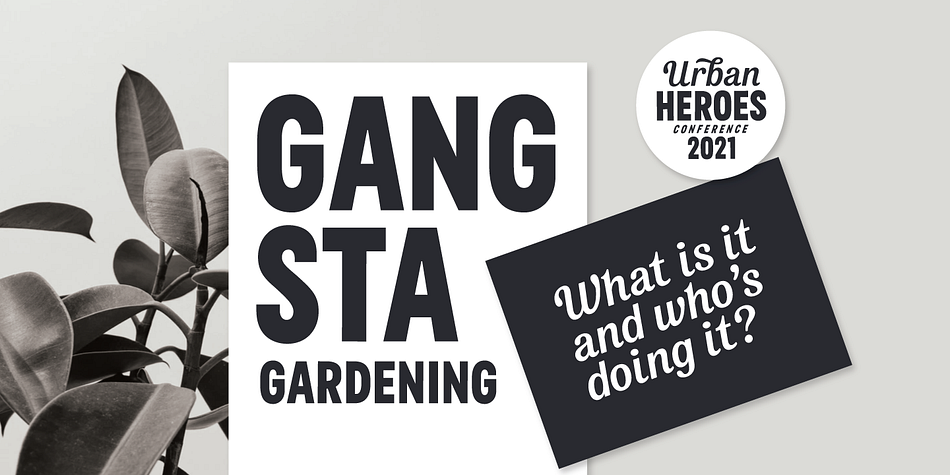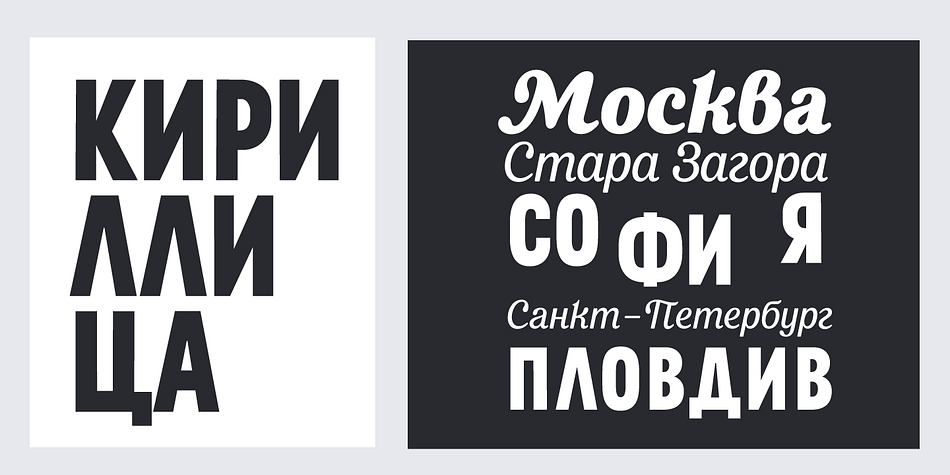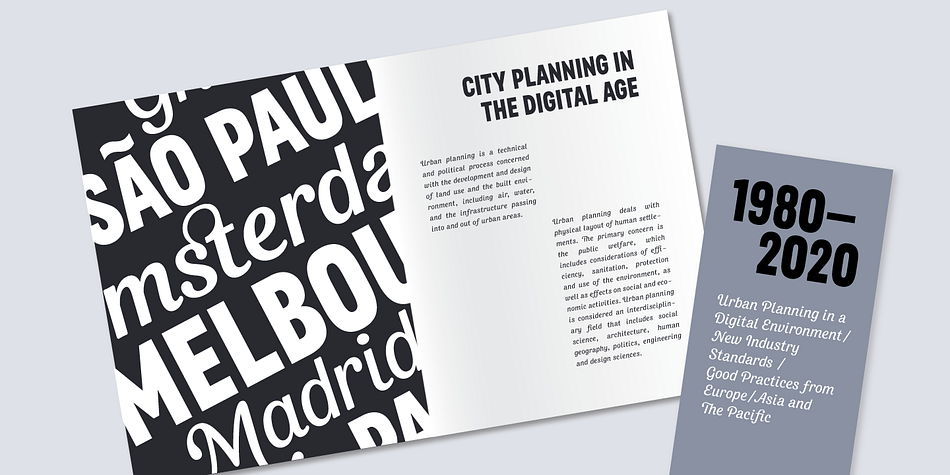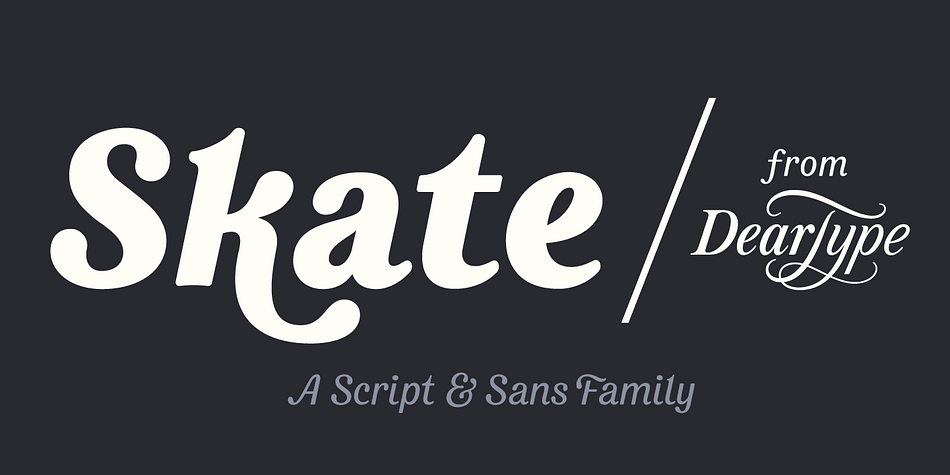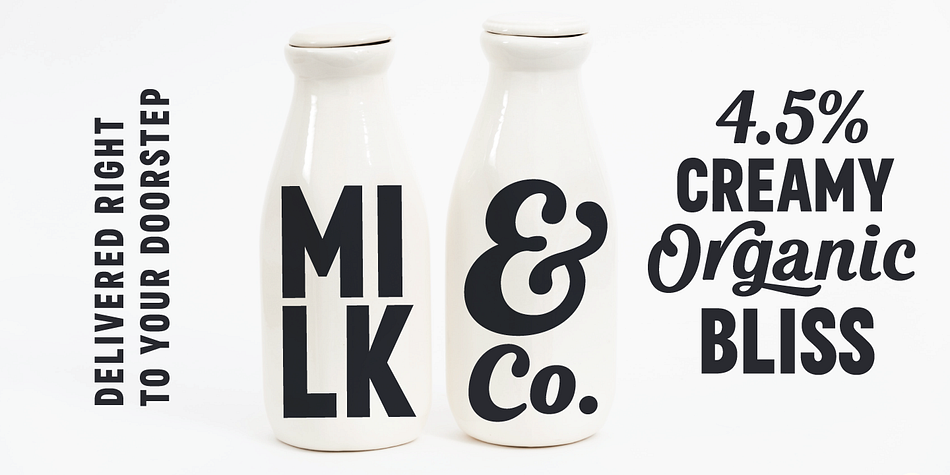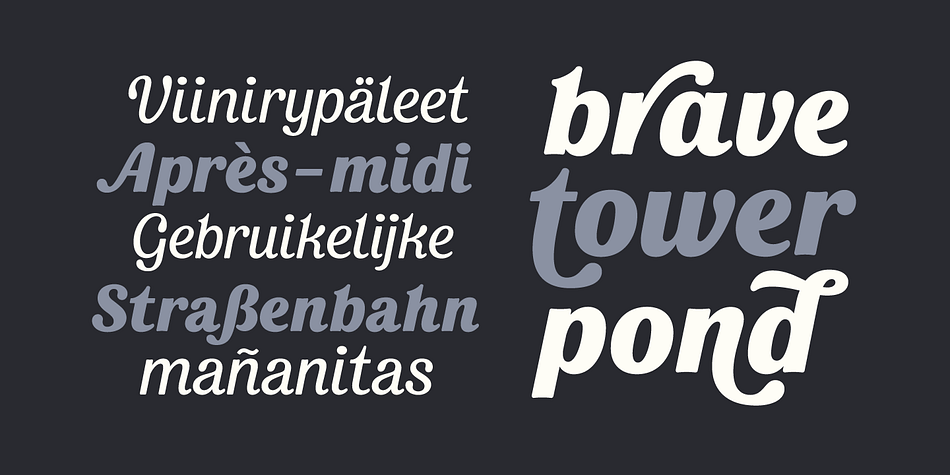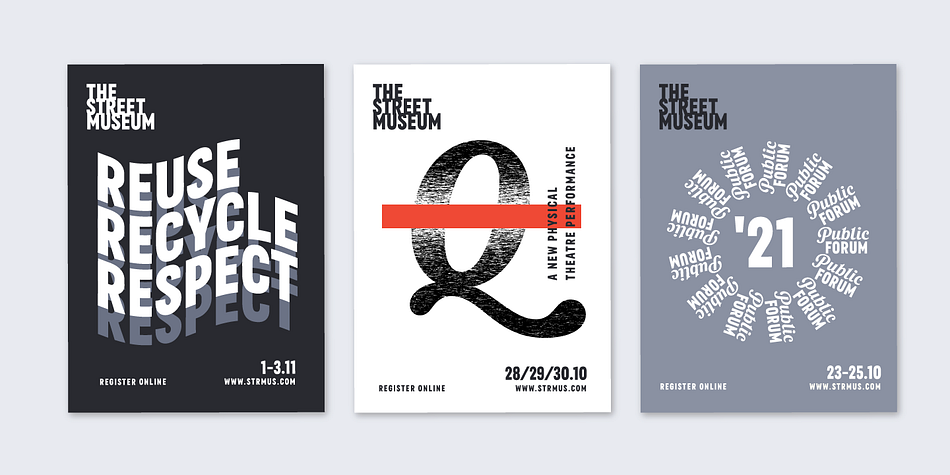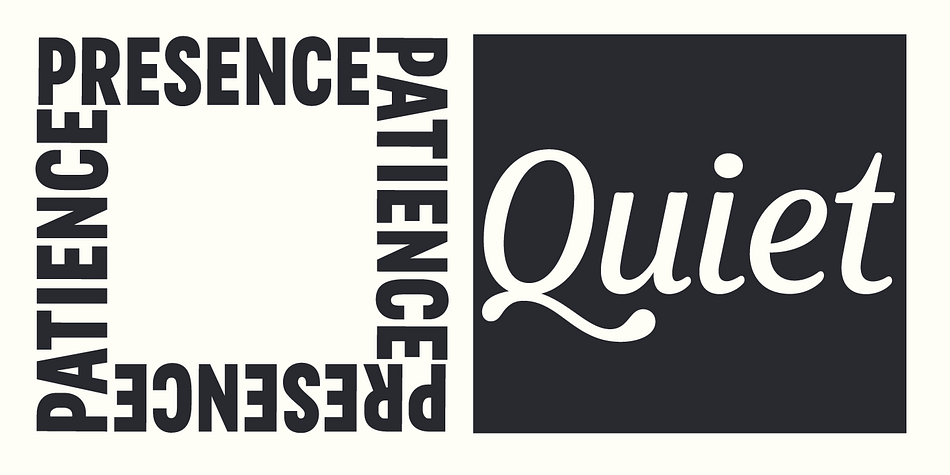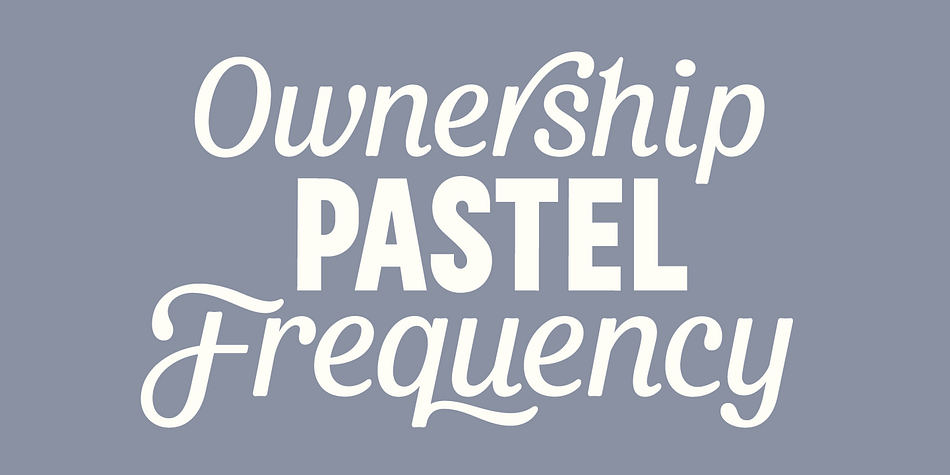
Skate
Designed by Veneta Rangelova, Skate is a display sans, retro and script font family. This typeface has six styles and was published by DearType.
Skate is a multifunctional font family of a script in five weights and a bold complementary sans. It is a versatile combination that works best in large sizes - think billboards, posters, magazine and website headlines, as well as packaging. The Skate family is edgy and packs quite a punch which also makes it suitable for branding projects that rely heavily on type. Both the script and the sans have Latin Extended and Cyrillic support, while the script also comes with a variety of ligatures and stylistic sets for even more design freedom. The Skate family was inspired by urban culture, so it is a great fit for projects that cater to a bold and youthful audience.